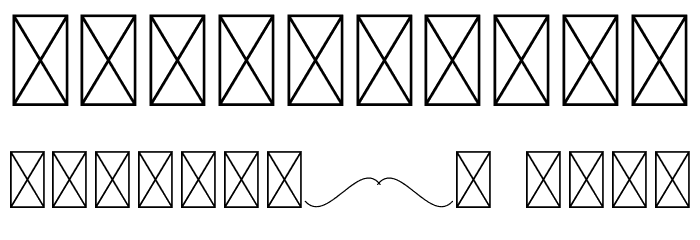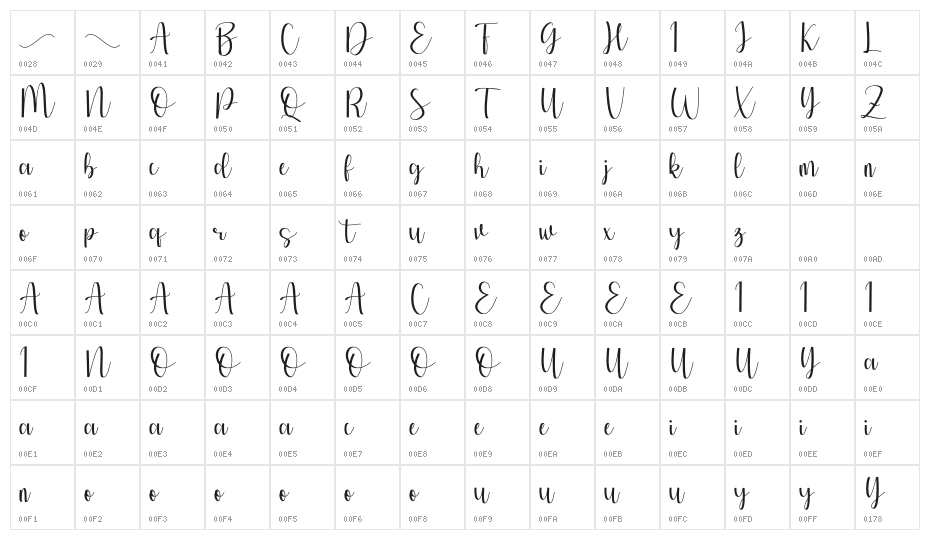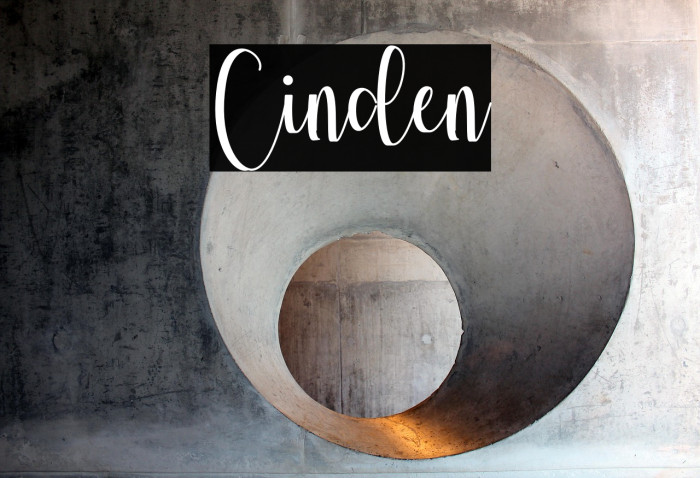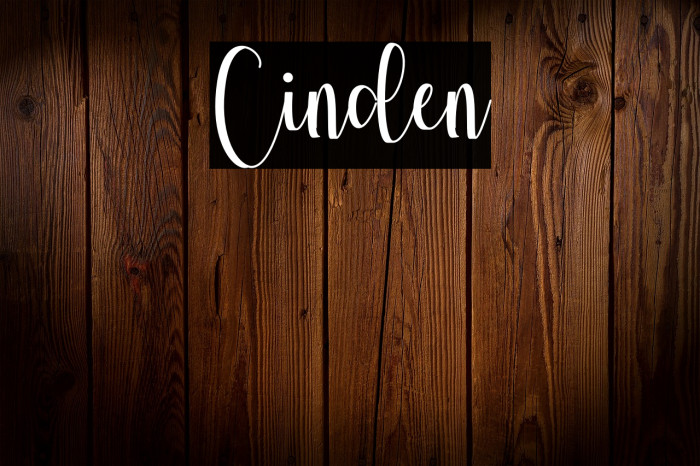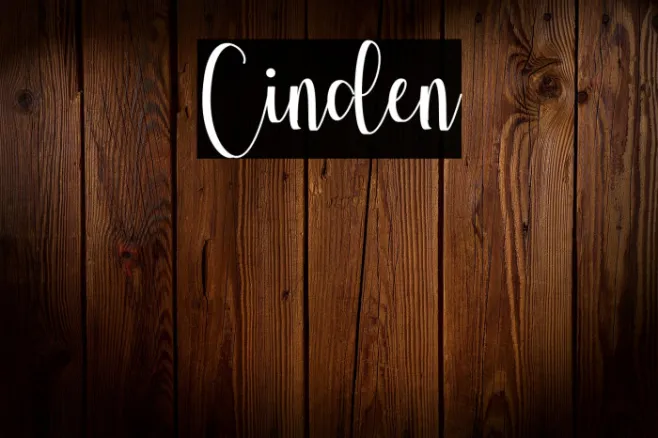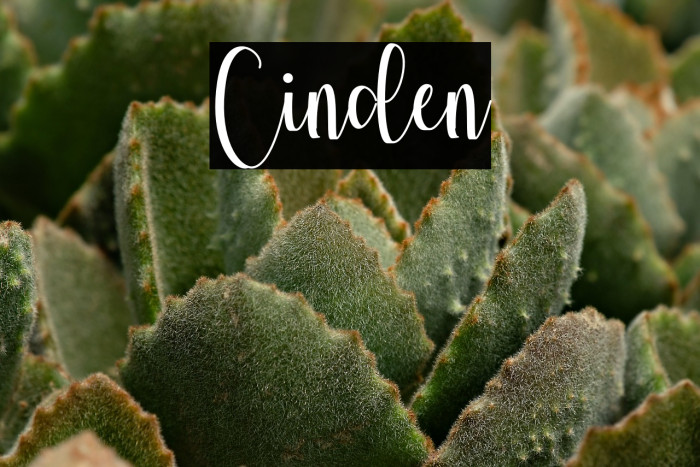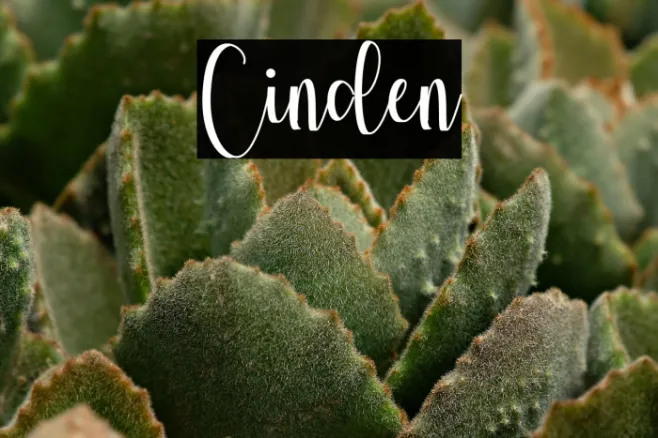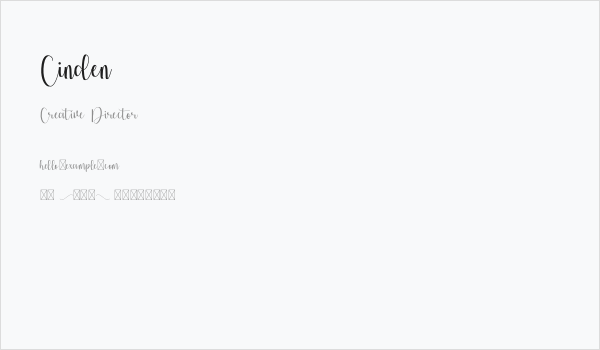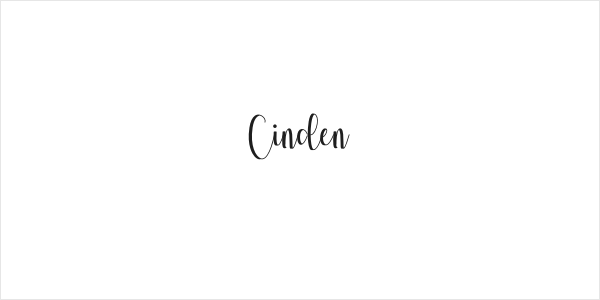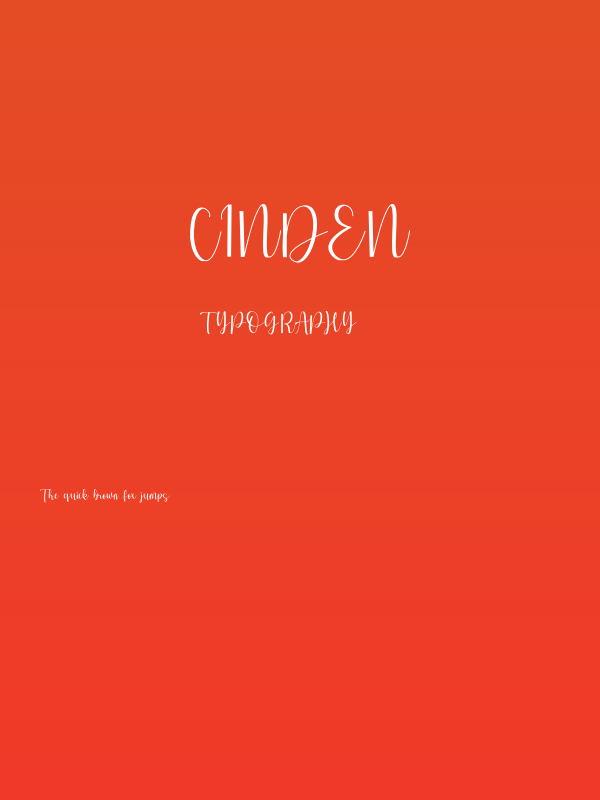
Cinden Font
Cinden Description
This font features a flowing, cursive style with elegant loops and swashes, giving it a handwritten appearance. The uppercase letters are tall and graceful, with a slight slant that adds to the fluidity of the design. The lowercase letters maintain a consistent style, with smooth curves and a natural, organic feel. The overall look is sophisticated and artistic, making it suitable for creative and decorative applications. The font's design is both modern and timeless, offering versatility for various design projects.
Use CaseLogos, Invitations, Decorative text
Proposed ProjectsIdeal for wedding invitations, greeting cards, branding, and logo design.